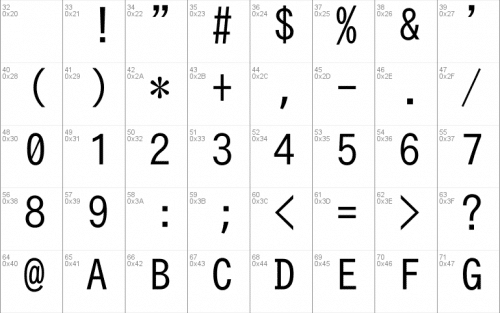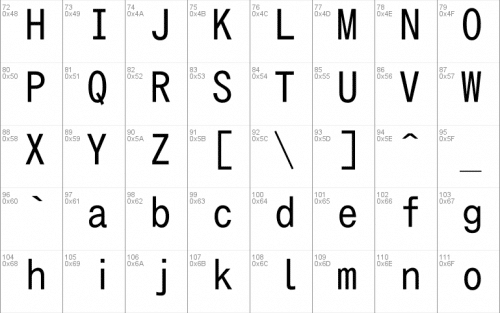
Hangyaku Font
Hangyaku Font based on the logo of “Puella Magi Madoka Magica the film”. You can type katakana, Madoka runes, some ideograms, a few hiragana by using this font.
IPA Gothic(IPAゴシック, https://ipafont.ipa.go.jp/node17#jp) is used for alphabetical glyphs of this font file.
• Designer: daredemotypo